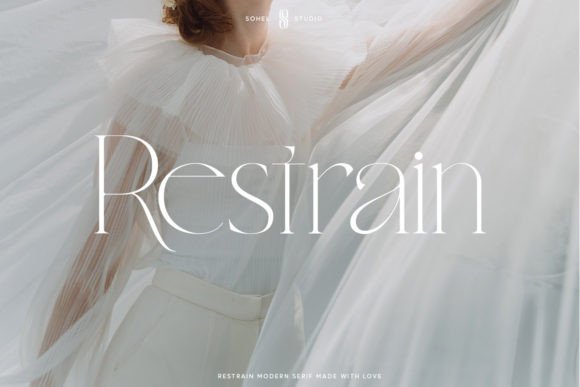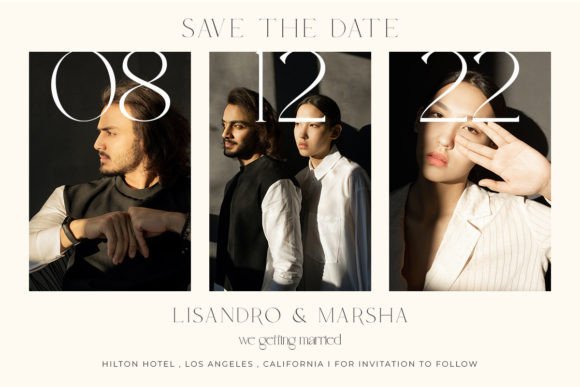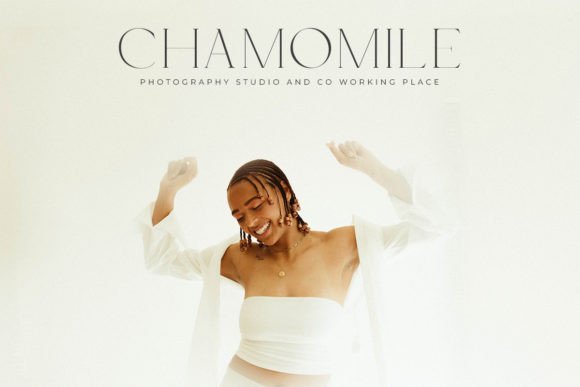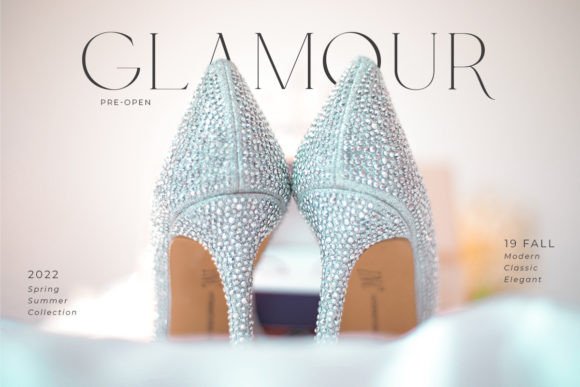
Restrain Font: Elegant Serif for Wedding Invitations & Logo Design
About the Restrain Font
Presenting Restrain Font, a unique and stylish typeface that will make your work stand out. Restrain is a modern and stylish serif font. It looks stunning on wedding invitations, thank you cards, quotes, greeting cards, logos, business cards, and every other design which needs a handwritten touch. This font is PUA encoded which means you can access all the glyphs and ligatures with ease!
Restrain’s elegant yet modern serif design excels in applications requiring a touch of sophistication. It is ideally suited for headlines, short text blocks, and branding elements where readability at larger sizes is key. Use it effectively for logos, posters, and packaging, particularly for products emphasizing quality and craftsmanship. Avoid using it for body text or long paragraphs, as its refined forms may hinder readability at smaller sizes.
Its inherent elegance pairs well with clean sans-serif fonts like Open Sans or Lato for a balanced contrast. For a more playful yet sophisticated feel, consider pairing it with a script font such as Great Vibes, but use sparingly to maintain visual hierarchy. Geometric sans-serifs like Montserrat could also provide a modern counterpoint, especially in projects requiring a strong, contemporary identity.
The overall personality of Restrain is sophisticated and refined, lending itself to brands seeking to project an image of timeless quality and understated elegance. It conveys a sense of confidence and composure without being overly formal.
Restrain Font Usage Examples
Restrain Font Example